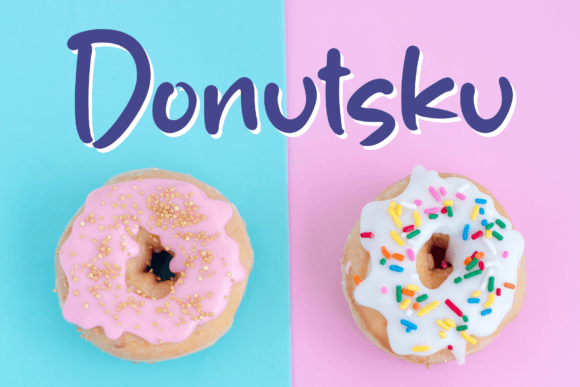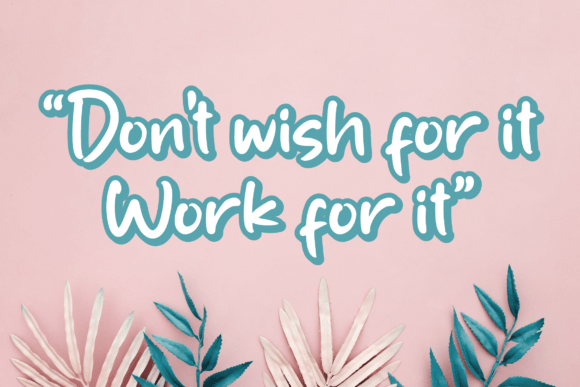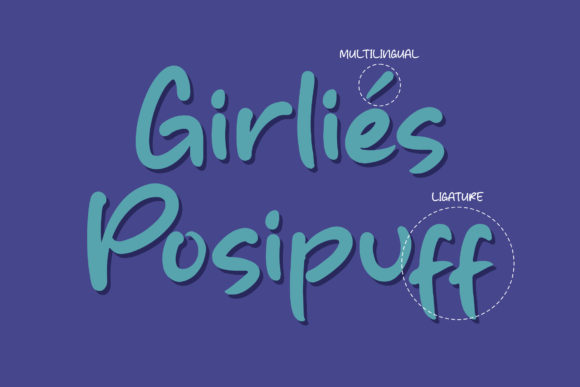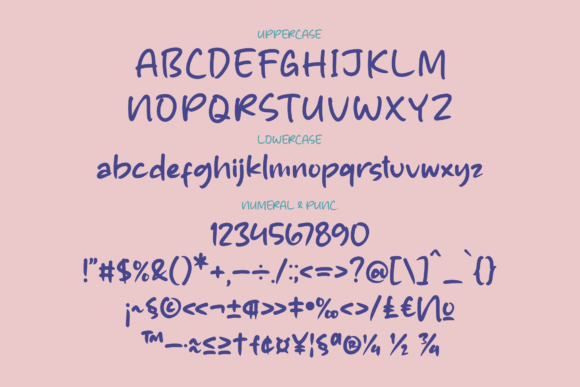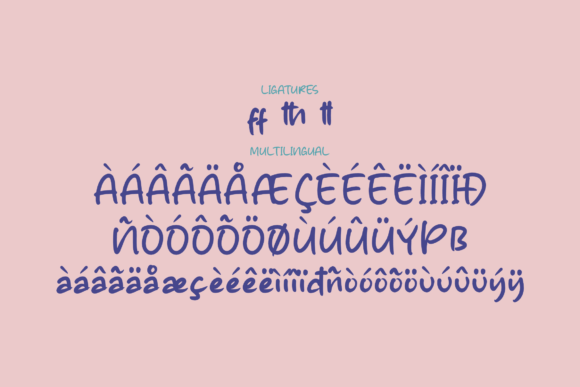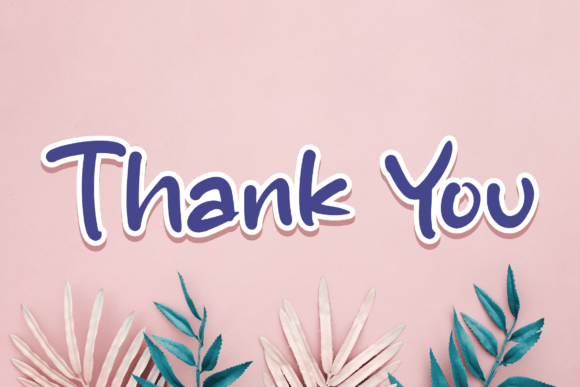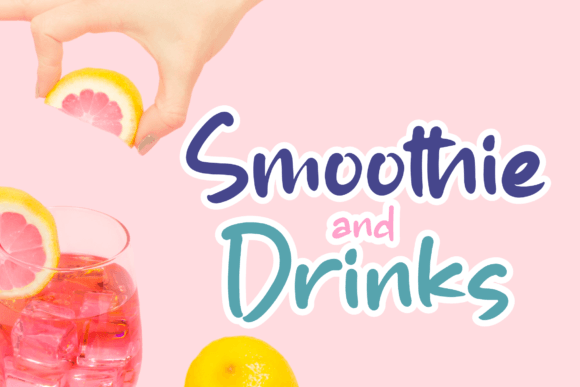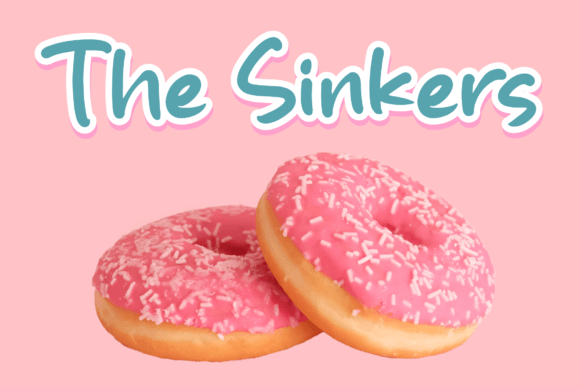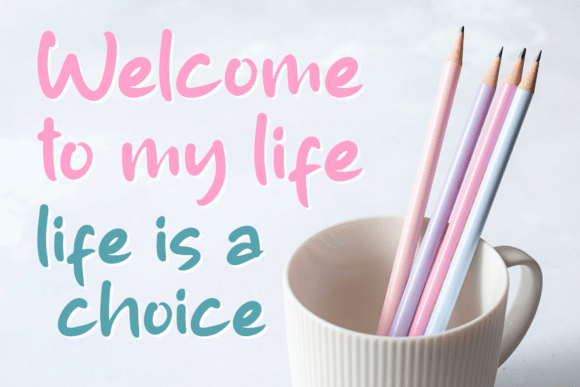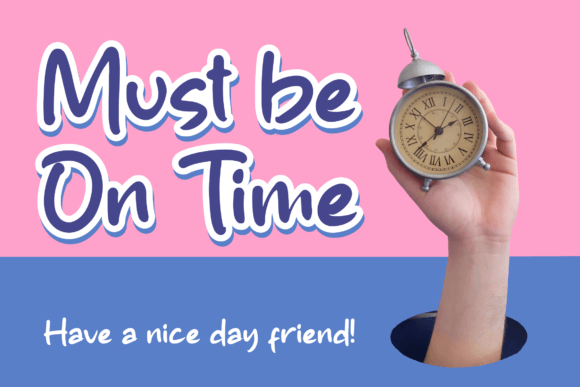
Pasthelo Font
About Pasthelo Font
Pasthelo is a quirky handwritten font that brings a unique and playful charm to your designs. This font is suitable for a diverse range of projects, making it a versatile choice for logos, branding projects, homeware designs, product packaging, mugs, quotes, posters, shopping bags, t-shirts, book covers, name cards, invitation cards, greeting cards, labels, photography, watermarks, special events, and all your other creative endeavors that demand a beautiful script taste.
The quirkiness of Pasthelo adds character and individuality to your text, making it stand out in various design contexts. Whether you’re creating a brand logo that needs a touch of playfulness or designing product packaging that requires a unique script, Pasthelo excels in bringing a beautiful and quirky script taste to your projects.
Imagine Pasthelo enhancing your designs, whether on charming homeware, eye-catching posters, or delightful greeting cards. The font becomes a key element that not only adds a handwritten touch but also infuses a sense of playfulness and beauty into your creations.
In summary, Pasthelo is more than just a font; it’s a design asset that brings quirkiness and a beautiful script taste to your projects. Embrace its versatility confidently, and let Pasthelo be the typeface that elevates your designs across a wide spectrum of creative applications.